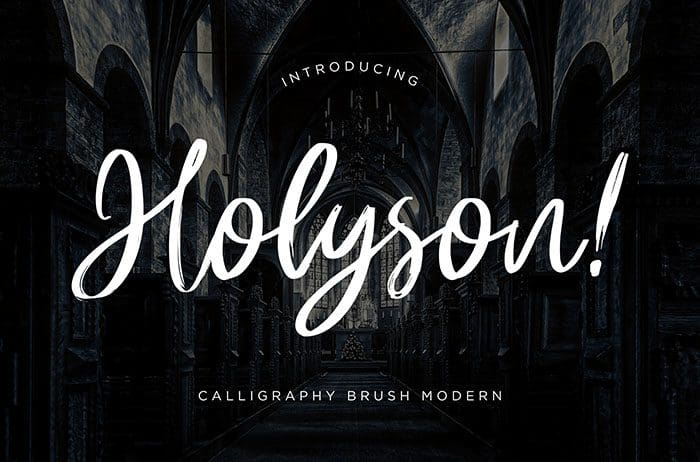
Holyson Brush Font
Holyson Brush Font is handwritten calligraphy with brush rough style looks modern and elegant. Perfect for product designs, labels, and much more. Thanks to Creatype Studio for sharing this font! Take a look at this portfolio for more of his stunning fonts.